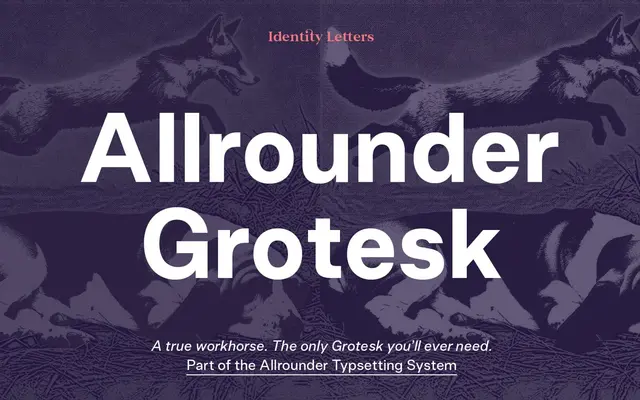
Allrounder Grotesk
A neutral neo-grotesque with ten weights and hand-corrected obliques, designed for both text and display use as part of the broader Allrounder superfamily.
Ten weights spanning Air to Black, each with 900+ glyphs and carefully corrected obliques, make this a thorough workhorse for both running text and large-scale display work. A condensed sub-family and variable font versions extend the range further. The design prioritises neutrality and utility over typographic personality.
Explicitly described as a neo-grotesk, with neutral, unobtrusive forms suited to both text and display use, consistent with the neo-grotesque tradition of restrained, systematic design.